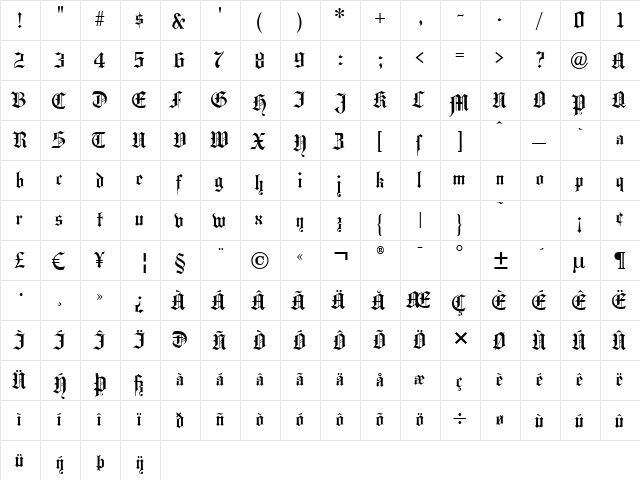
Hansa Gotisch UNZ1L Regular
Design Context for Hansa Gotisch UNZ1L Typeface
Hansa Gotisch UNZ1L is a composed and adaptable typeface that performs quietly and consistently across a wide range of design contexts.